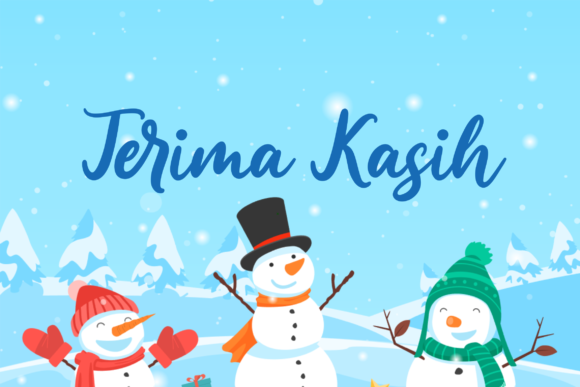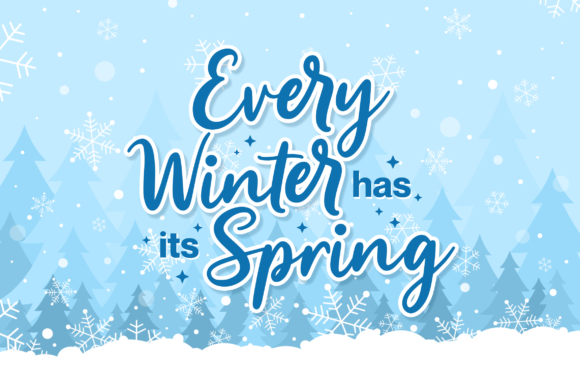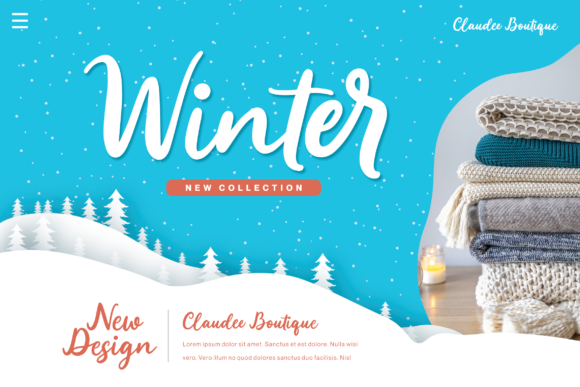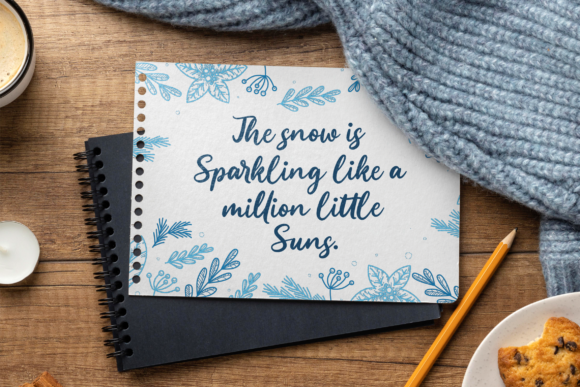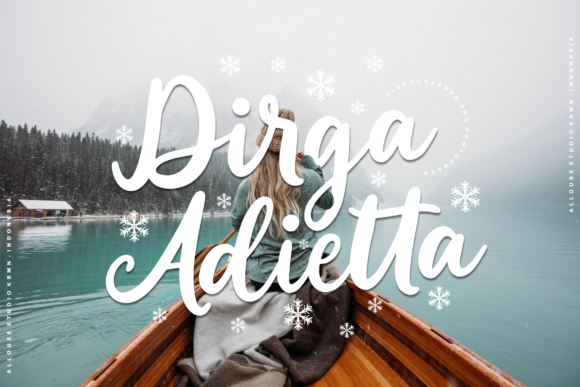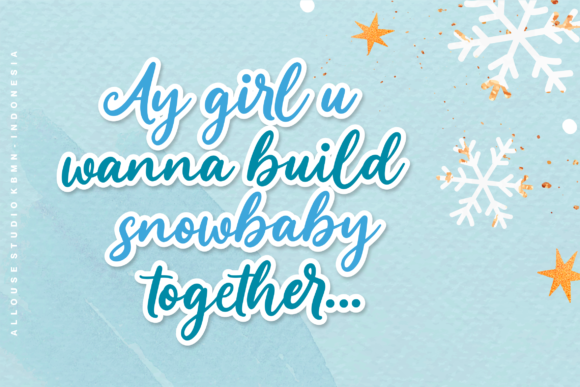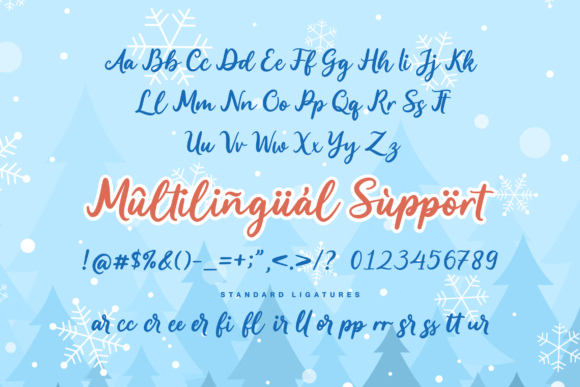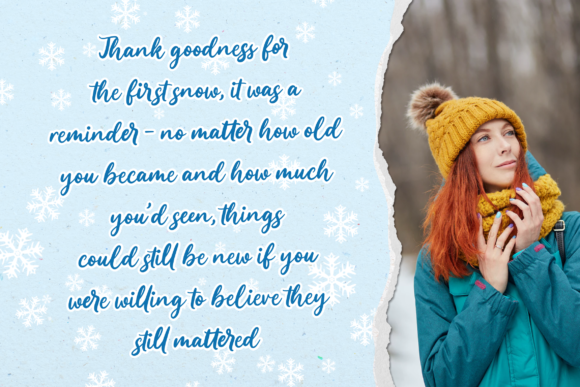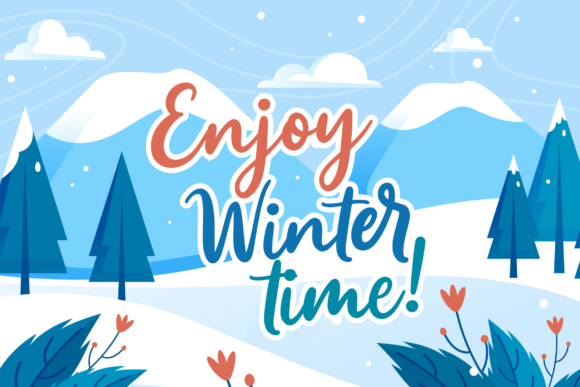
Guardian Snowing Font
About Guardian Snowing Font
Guardian Snowing feels equally charming and elegant. It looks stunning on wedding invitations, thank you cards, quotes, greeting cards, logos, business cards and every other design which needs a customized touch.